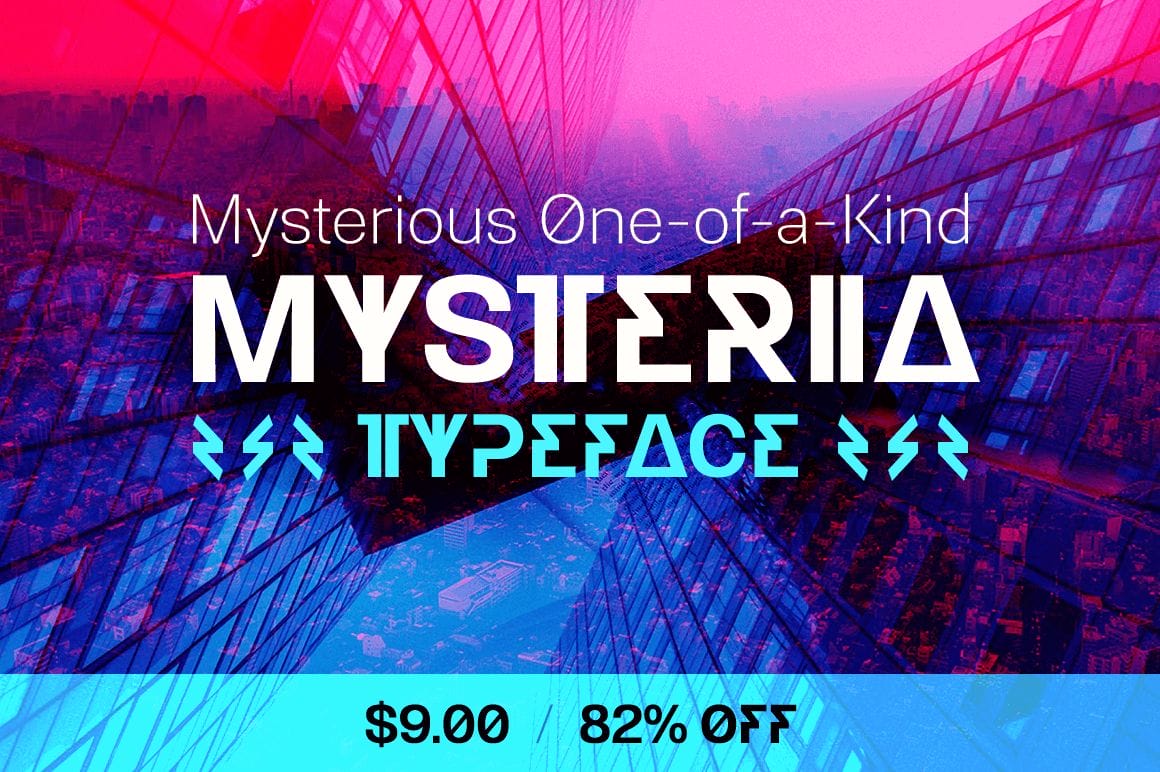
From aliens to the Illuminati, you’re sure to pique the interest of anyone with this incredibly unique font. The Mysteria Typeface has such a mysterious flair to it that your designs will even want to get in on the fun. Composed of light and bold weights, you can really create the perfect look by mixing the two.
- Stand apart from the crowd – one-of-a-kind typeface that seems alien in nature.
- Eccentric design has an air of mystery.
- Mix and match two weights to create mystifying messages.
- Unique display font is perfect for headlines, posters, T-shirts, signs and more.
- Blends beautifully with matching body text family Gerlach Sans.